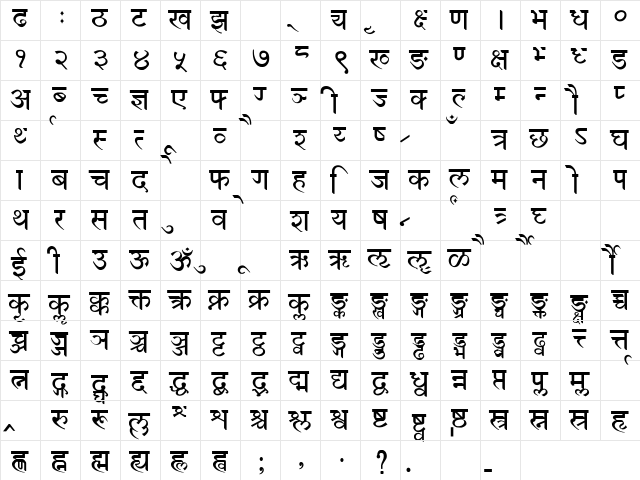
Devanagari Normal
Design Context for Devanagari Typeface
Devanagari takes a measured approach to typography — its balanced proportions and neutral character make it a reliable workhorse for both digital and print work.
Pro Tip: Use Devanagari in both headline and body roles to test its range before committing to a single application.